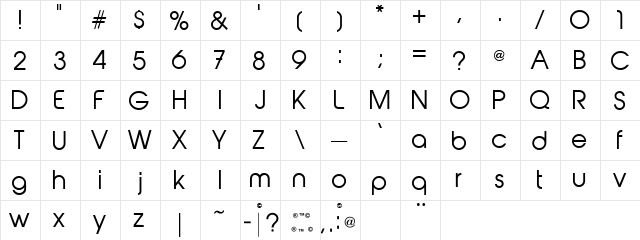
abeatbyKai Regular Font Preview
abeatbyKai Regular
Design Context for abeatbyKai Typeface
abeatbyKai offers clean, dependable letterforms without strong stylistic allegiance, making it a practical choice for designers who need flexibility.